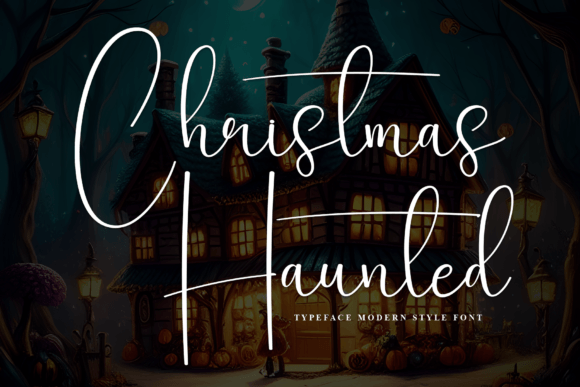
Christmas Haunted Font: A Charming and Casual Typeface for Your Holiday Projects
Are you looking for a unique and festive font to add a personal touch to your holiday projects? Look no further than Christmas Haunted, a charming and casual typeface that is perfect for creating a warm and cozy atmosphere. In this article, we’ll take a closer look at the features of Christmas Haunted and how you can use it to make your holiday projects stand out.
What is Christmas Haunted Font?
Christmas Haunted is a charming and casual typeface that looks like it was written by hand. It features uneven letters and a natural flow, giving it a warm and friendly feel. The font is perfect for personal projects, invitations, and anything that needs a cozy, handmade touch. Whether you’re creating holiday cards, gift tags, or social media posts, Christmas Haunted is the perfect choice.
Key Features of Christmas Haunted Font
- Handwritten look: Christmas Haunted has a natural, handwritten look that gives it a warm and friendly feel.
- Uneven letters: The font features uneven letters that add to its handmade charm.
- Natural flow: The letters in Christmas Haunted have a natural flow that makes them look like they were written by hand.
- Cozy and inviting: The font has a cozy and inviting feel that’s perfect for holiday projects.
How to Use Christmas Haunted Font
Christmas Haunted is a versatile font that can be used for a variety of holiday projects. Here are a few ideas to get you started:
Project Ideas for Christmas Haunted Font
- Holiday cards: Use Christmas Haunted to create personalized holiday cards for your friends and family.
- Gift tags: Add a personal touch to your gifts with Christmas Haunted.
- Social media posts: Use Christmas Haunted to create festive social media posts that will stand out from the crowd.
- Invitations: Create personalized invitations for your holiday parties and events.
Benefits of Using Christmas Haunted Font
There are many benefits to using Christmas Haunted for your holiday projects. Here are a few:
Benefits of Christmas Haunted Font
- Unique and festive: Christmas Haunted is a unique and festive font that will add a personal touch to your holiday projects.
- Easy to read: Despite its handwritten look, Christmas Haunted is easy to read and understand.
- Versatile: Christmas Haunted can be used for a variety of holiday projects, from cards and invitations to social media posts and gift tags.
Tips for Using Christmas Haunted Font
Here are a few tips for using Christmas Haunted:
Tips for Using Christmas Haunted Font
- Use it with other fonts: Christmas Haunted pairs well with other fonts, so feel free to experiment with different combinations.
- Adjust the size: Experiment with different font sizes to find the perfect size for your project.
- Use it sparingly: While Christmas Haunted is a beautiful font, it can be overwhelming if used too much. Use it sparingly to add a personal touch to your project.